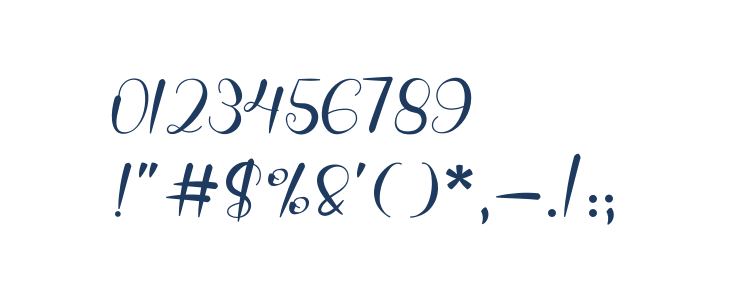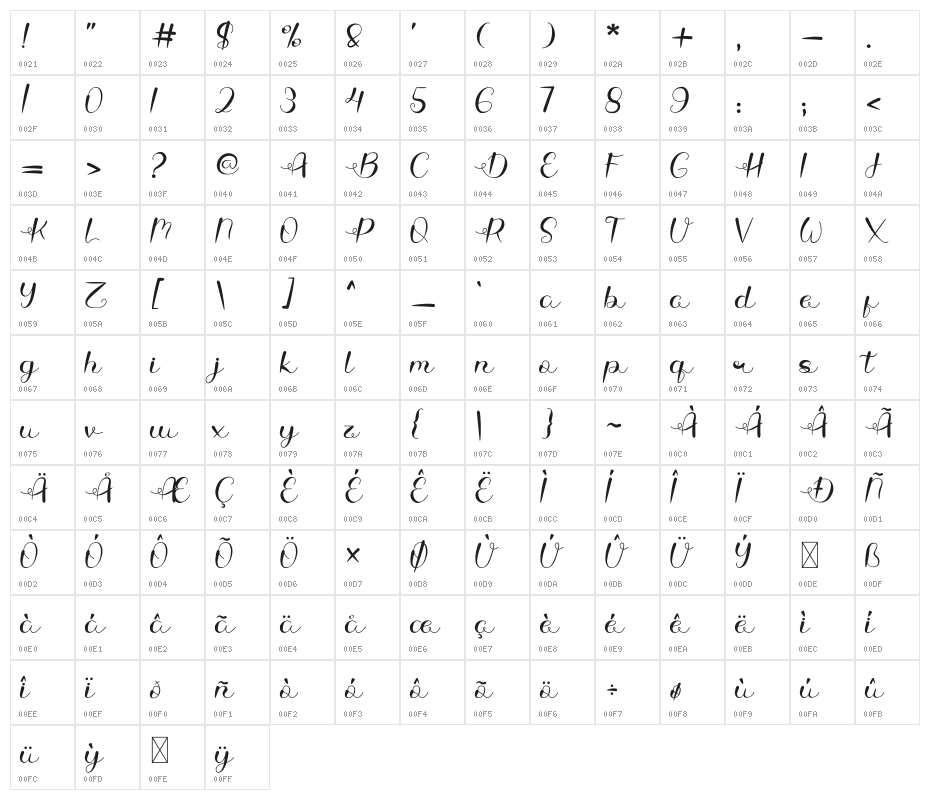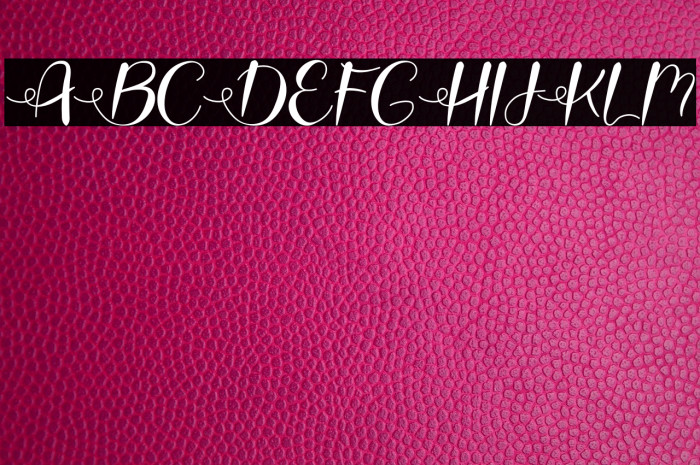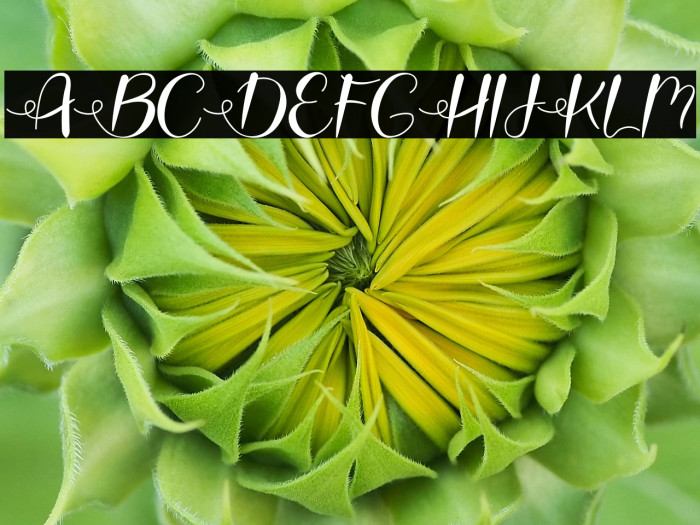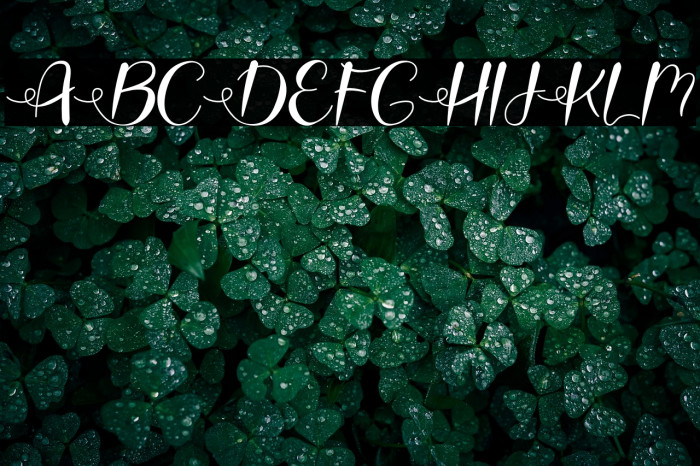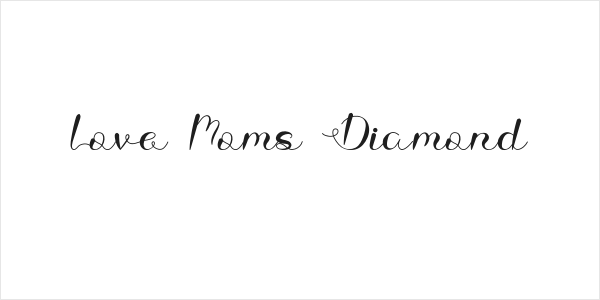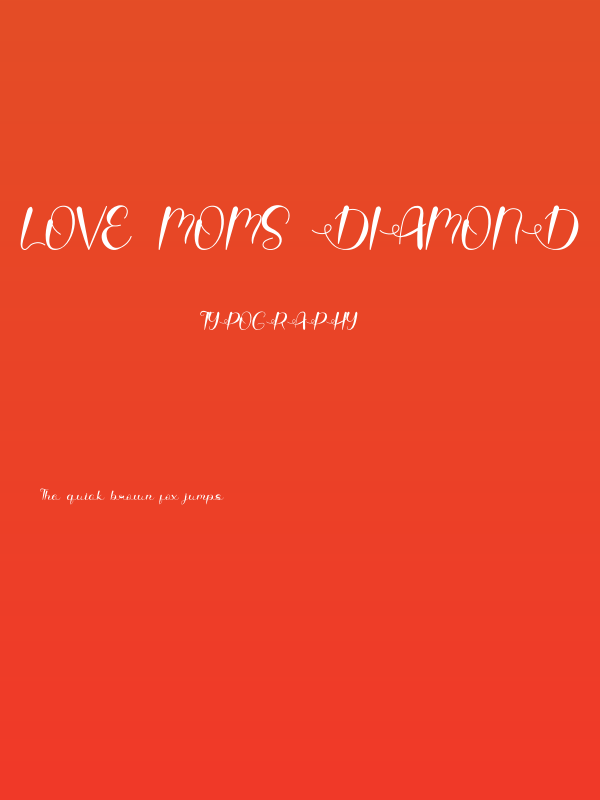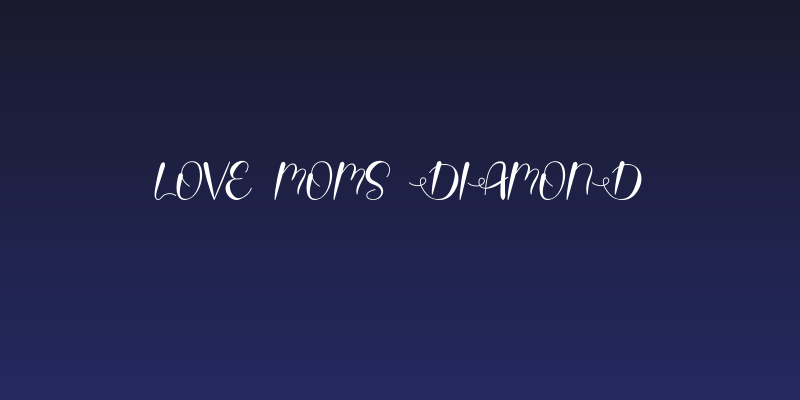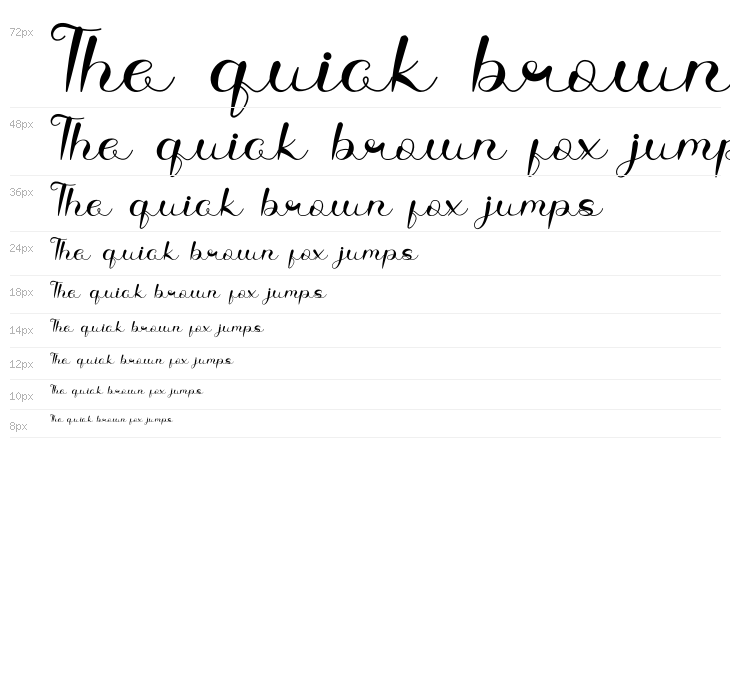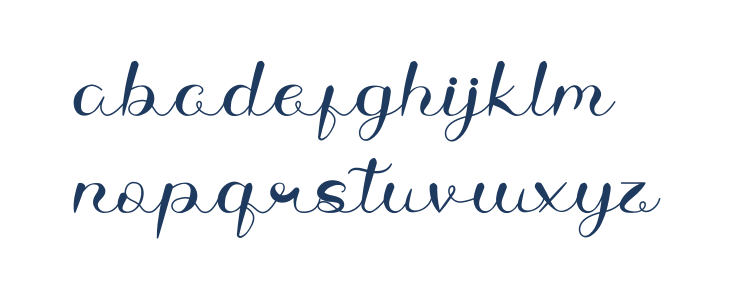
Love Moms Diamond Font
Love Moms Diamond Description
This elegant script font features flowing, interconnected letters with decorative swashes that add a touch of sophistication and charm. The uppercase letters are particularly ornate, with intricate loops and flourishes that create a sense of movement and grace. The lowercase letters maintain a consistent style, offering a smooth and cohesive look. The numerals are stylish and complement the overall aesthetic, while the special characters are thoughtfully designed to match the font's decorative nature. This font is perfect for projects that require a touch of elegance and personality.